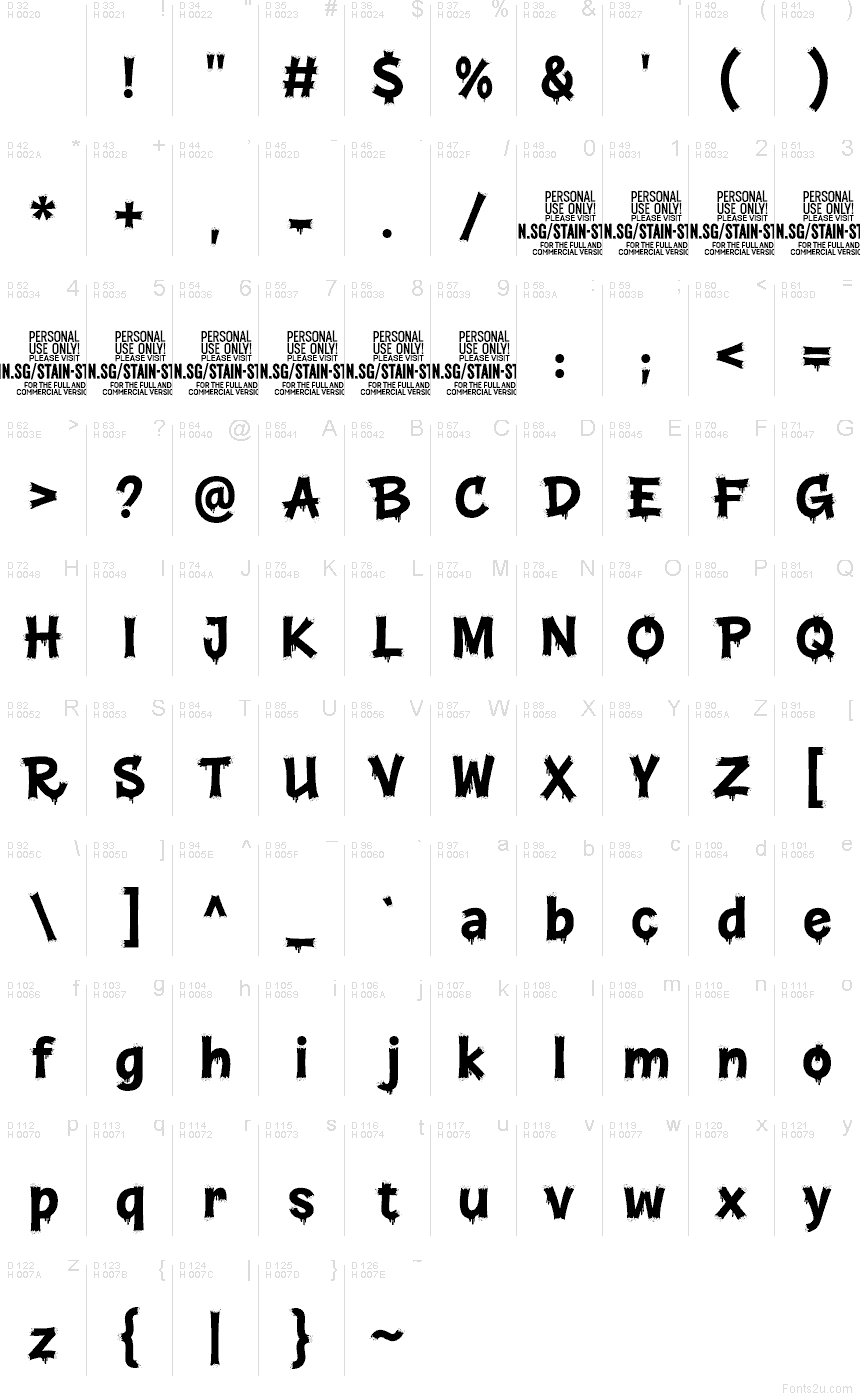
Stain Street PERSONAL USE Regular
Stain Street font by Mans Greback is a free graffiti font that looks like it’s been sprayed straight onto a cracked brick wall. The letters are thick and inky, with drips and splatters that feel wet and freshly painted, yet there’s a playful, cartoon-ish bounce to the curves. That mix of grime and charm gives the typeface a loud, streetwise personality without feeling harsh or aggressive.
Using Stain Street, you can shout on posters, album covers, skate or streetwear branding, event flyers, YouTube thumbnails, and bold social graphics. This free font works best at larger sizes where the dripping details can really ooze, and it pairs nicely with a clean geometric sans for body text to keep things readable while the headlines go wild.